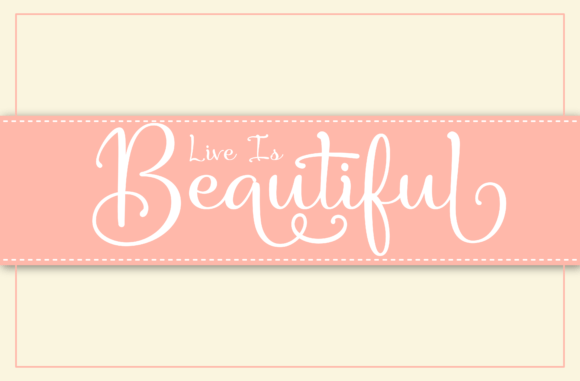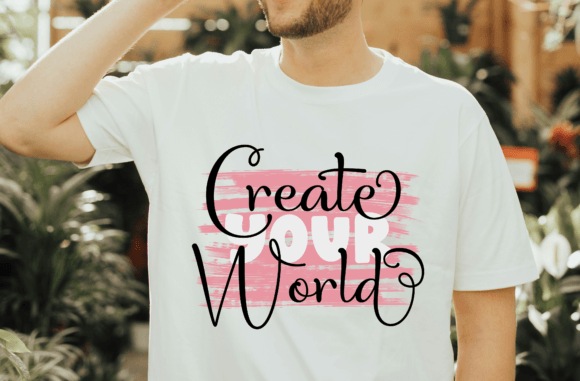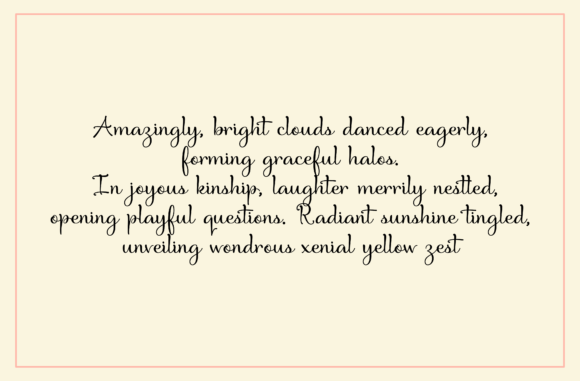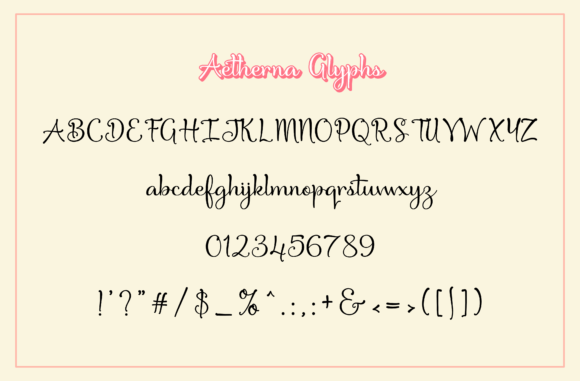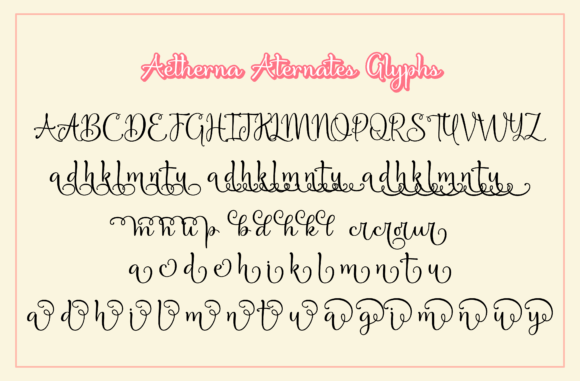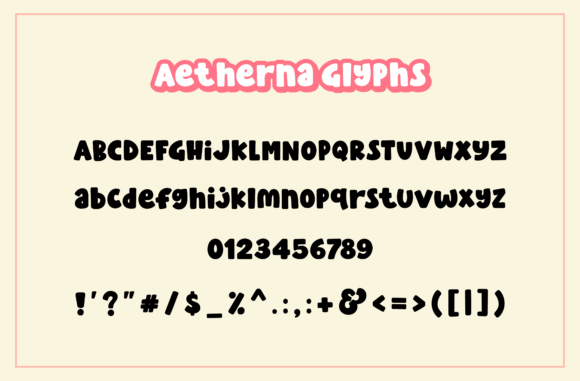
Aetherna Font: The Epitome of Elegance and Handwritten Beauty
In the realm of typography, few fonts manage to capture the essence of handwritten elegance as effortlessly as Aetherna. This exquisite font is a masterclass in fluid curves and delicate lines, where every letter seems to tell a story, beckoning you to immerse yourself in the artistry of expression. Aetherna is not just a font; it’s an experience, a journey into the world of sophisticated charm and timeless beauty.
The Essence of Aetherna: Handwritten Elegance
Aetherna embodies the very essence of handwritten beauty, making it an ideal choice for projects where elegance and sophistication are paramount. Its fluid curves and delicate lines are reminiscent of calligraphy, yet it retains a level of legibility that makes it perfect for a wide range of applications. Whether you’re designing wedding invitations, branding materials, or heartfelt letters, Aetherna adds a touch of refinement and charm that elevates your project to new heights.
One of the standout features of Aetherna is its versatility. This font is not limited to a specific genre or medium; rather, it can be used across a variety of platforms and projects. For wedding planners and stationery designers, Aetherna can add a touch of romance and sophistication to wedding invitations and ceremony programs. For brand strategists and marketers, this font can help create a luxurious and premium feel for branding materials, setting a brand apart from its competitors. Even for personal projects, such as crafting heartfelt letters or creating personalized gifts, Aetherna brings a level of intimacy and elegance that’s hard to match.
The Artistry of Expression
What sets Aetherna apart from other fonts is the level of artistry it brings to the table. Every stroke, every curve, and every line is a testament to the beauty of handwritten expression. This font invites you to explore the nuances of language and to express yourself in a way that’s both personal and profound. With Aetherna, every word becomes a work of art, a brushstroke of inspiration that adds depth and emotion to your message.
Timeless Elegance for the Modern Creator
In an era where digital communication often prioritizes speed over substance, Aetherna offers a refreshing respite. This font reminds us of the beauty of slowing down, of taking the time to craft our words and our messages with care and attention. It’s a font for the modern creator who values elegance, sophistication, and the art of expression. Whether you’re a designer looking to elevate your branding, a crafter seeking to add a personal touch to your projects, or simply someone who appreciates the beauty of handwritten typography, Aetherna is a timeless choice that will never go out of style.
Why Choose Aetherna?
- Elegance and Sophistication: Aetherna brings a level of refinement and charm to any project, making it perfect for applications where elegance is key.
- Versatility: From wedding invitations to branding materials, Aetherna’s versatility knows no bounds.
- Handwritten Beauty: With its fluid curves and delicate lines, Aetherna captures the essence of handwritten typography.
- Artistry of Expression: Every letter in Aetherna tells a story, inviting you to explore the nuances of language and expression.
Aetherna Font is more than just a typographical choice; it’s a statement of elegance, a declaration of sophistication, and an invitation to explore the artistry of expression. With its timeless beauty, fluid curves, and delicate lines, Aetherna is poised to become a favorite among designers, crafters, and anyone who appreciates the beauty of handwritten typography. Let your words flow with the elegance of Aetherna, where every stroke is a brushstroke of inspiration.